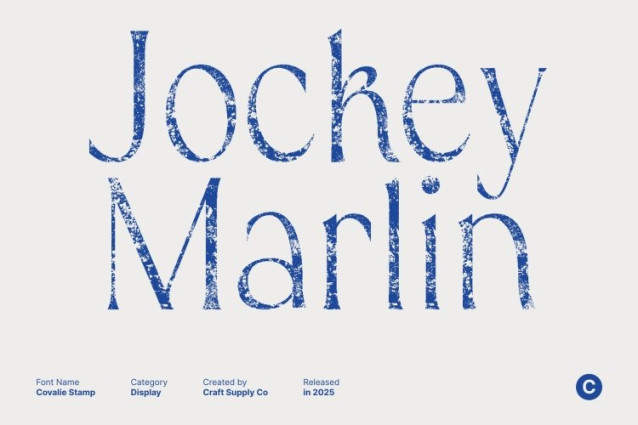
Covalie Stamp Font
Covalie Stamp Font This is an elegant serif font designed with refined curves and beautifully elongated details that instantly elevate any visual composition. Its graceful proportions create a high-end, luxurious look, making it perfect for projects that need sophistication and artistic finesse. Every letterform feels polished and intentional, offering a delicate yet confident presence.
Expressive Stamp Texture for a Unique, Artisanal Finish
What sets this font apart is its expressive stamp texture. This handcrafted effect adds depth, character, and a touch of imperfection that enhances the font’s charm. The textured surface transforms refined elegance into something more human, artistic, and memorable ideal for designs that seek a blend of luxury and authenticity.
Perfectly Suited for Luxury Branding and Editorial Design
This font shines in high-end branding, editorial layouts, and premium visual identities. Its elongated details and elegant curves create a timeless appeal, while the stamp texture adds a modern twist that makes your designs stand out. Use it for logos, magazine spreads, packaging, or boutique branding to convey class, creativity, and exclusivity.
Versatile, Stylish, and Impactful for Modern Creative Projects
Versatile enough for both display and stylized typography, adapts beautifully across various design needs. From fashion campaigns and beauty products to wedding invitations and artistic posters, it brings a refined yet expressive tone.